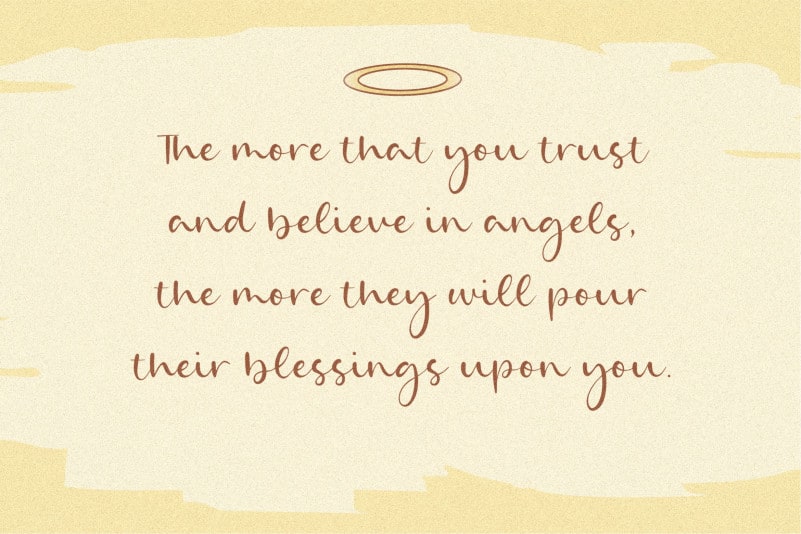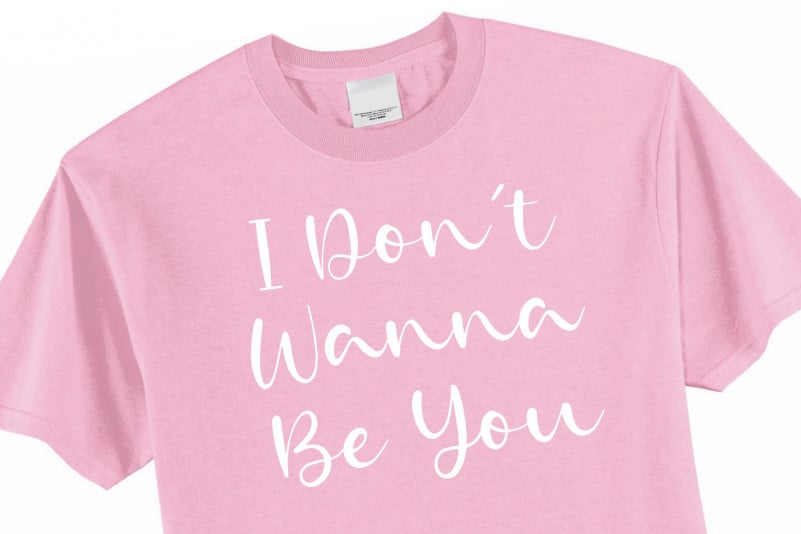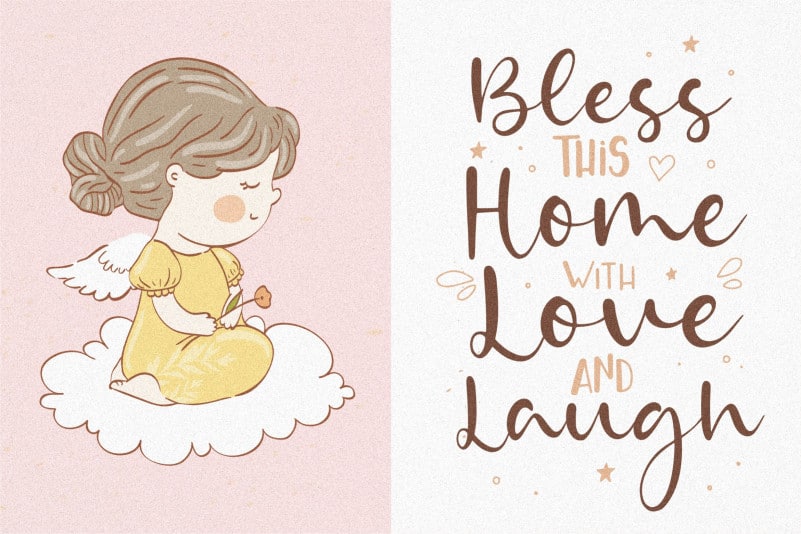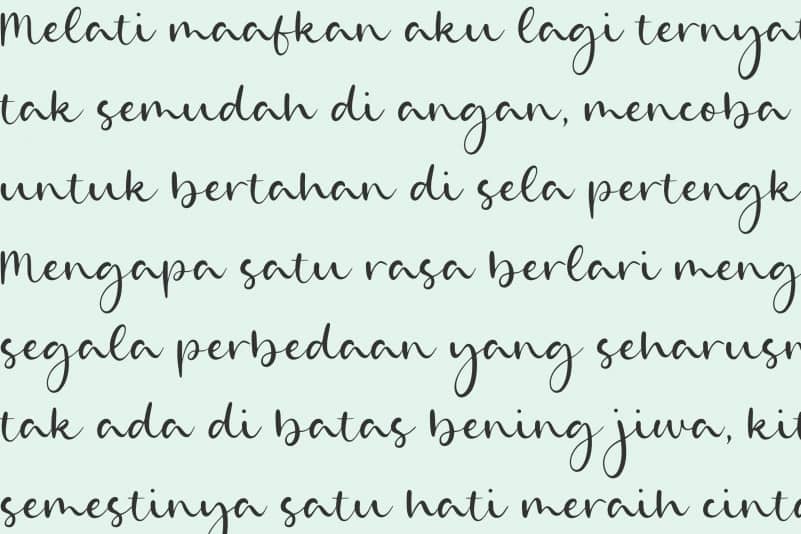
Goldie Angle Modern Handdrawn Font
Proudly Present, Goldie Angle Modern Handdrawn Font.
Goldie Angle is a Modern Handdrawn Font.
Goldie Angle is perfect for product packaging, branding project, megazine, social media, wedding, or just used to express words above the background.